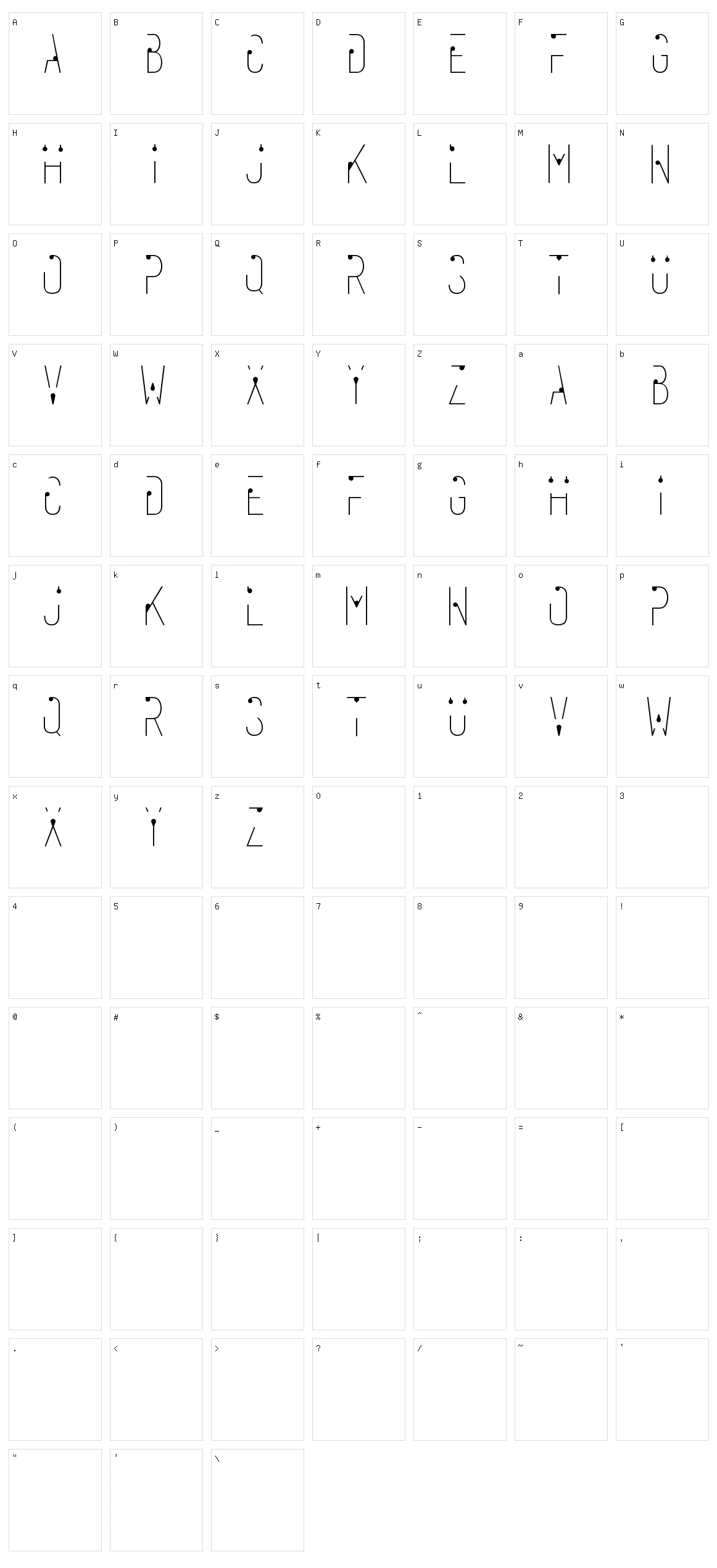
The free font Rahasia is carefully designed by Dhimas Novianto, showcasing a thoughtful balance of creativity and usability and falls under the Decorative font style. When you download the ZIP file, it contains only 5.28 KB of font files, making it lightweight and quick to download. Please review the license details below to understand permitted usage and distribution rights. If license information is not available, we recommend using this font for personal projects only or contacting the author directly for commercial usage permissions.